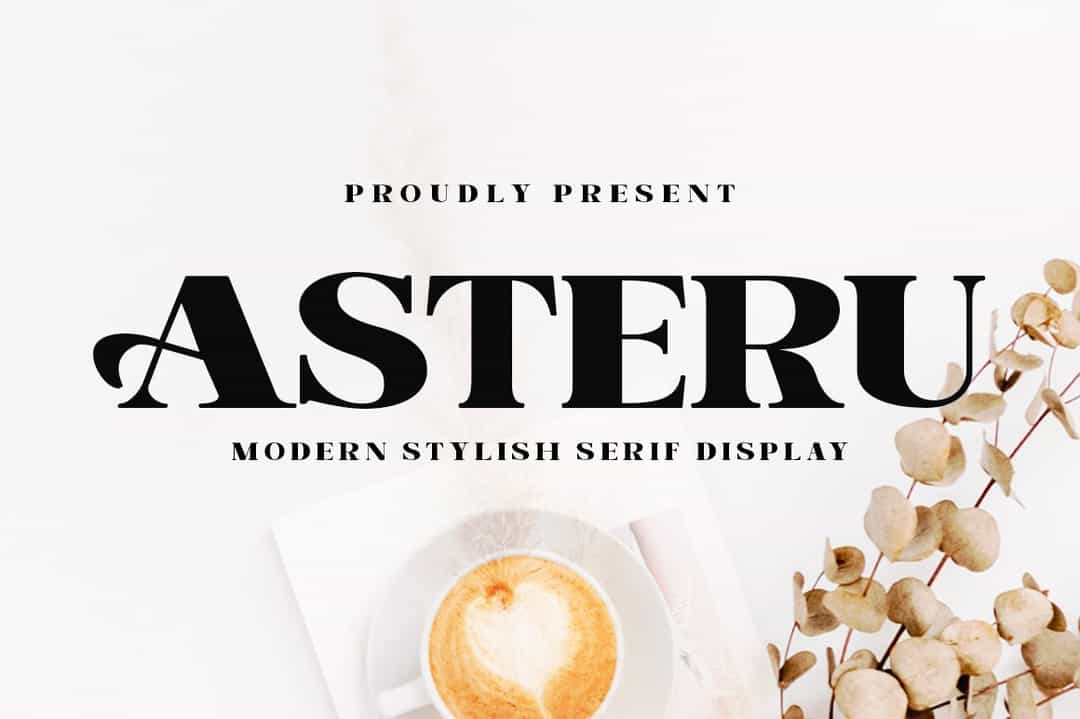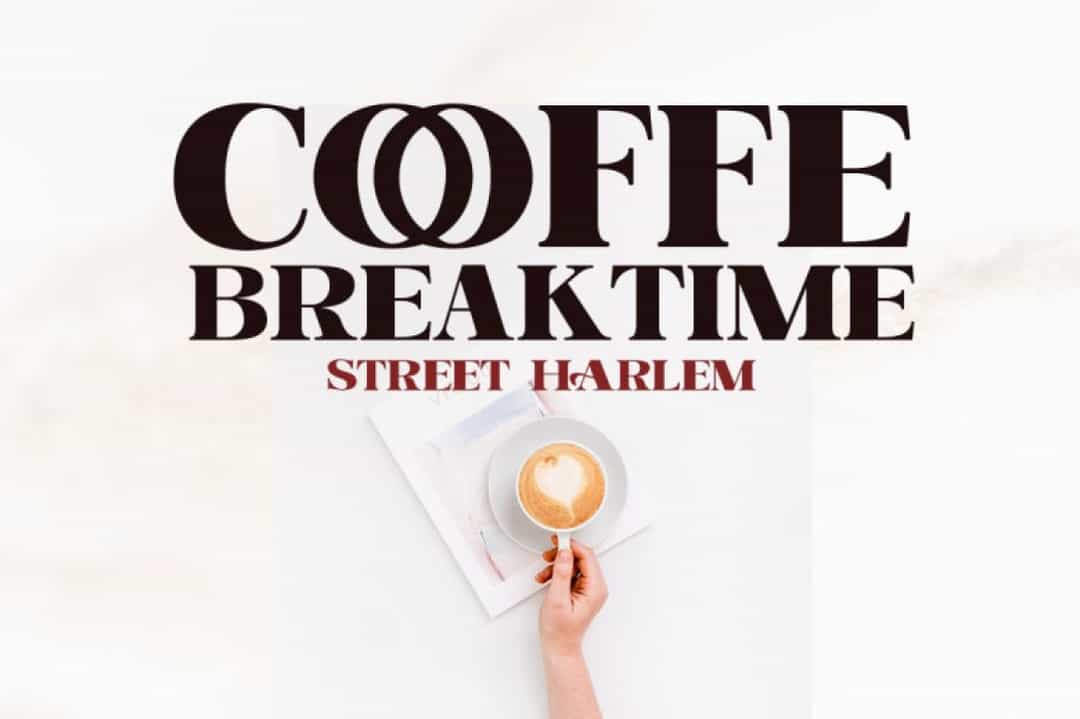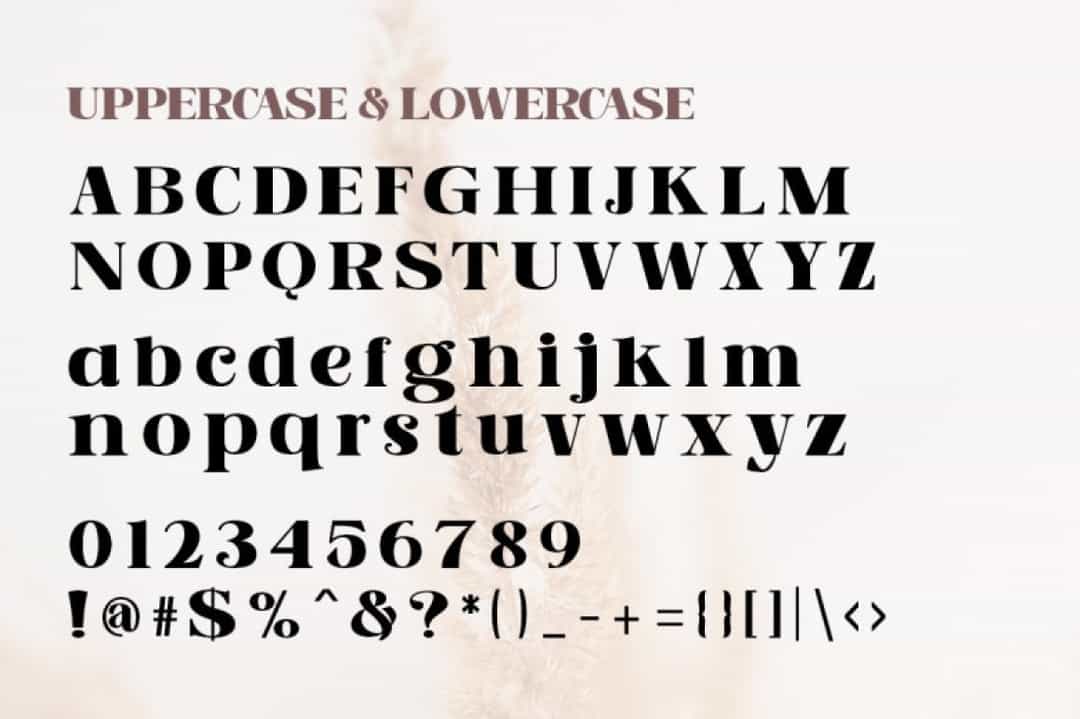
Asteru is a beautiful yet elegant serif font which can be used for wedding invitations, branding and greeting cards, posters with names cards or quotes printed onto them, logos for blogs or websites, fashion letters or apparel designs and any other designs imaginable.